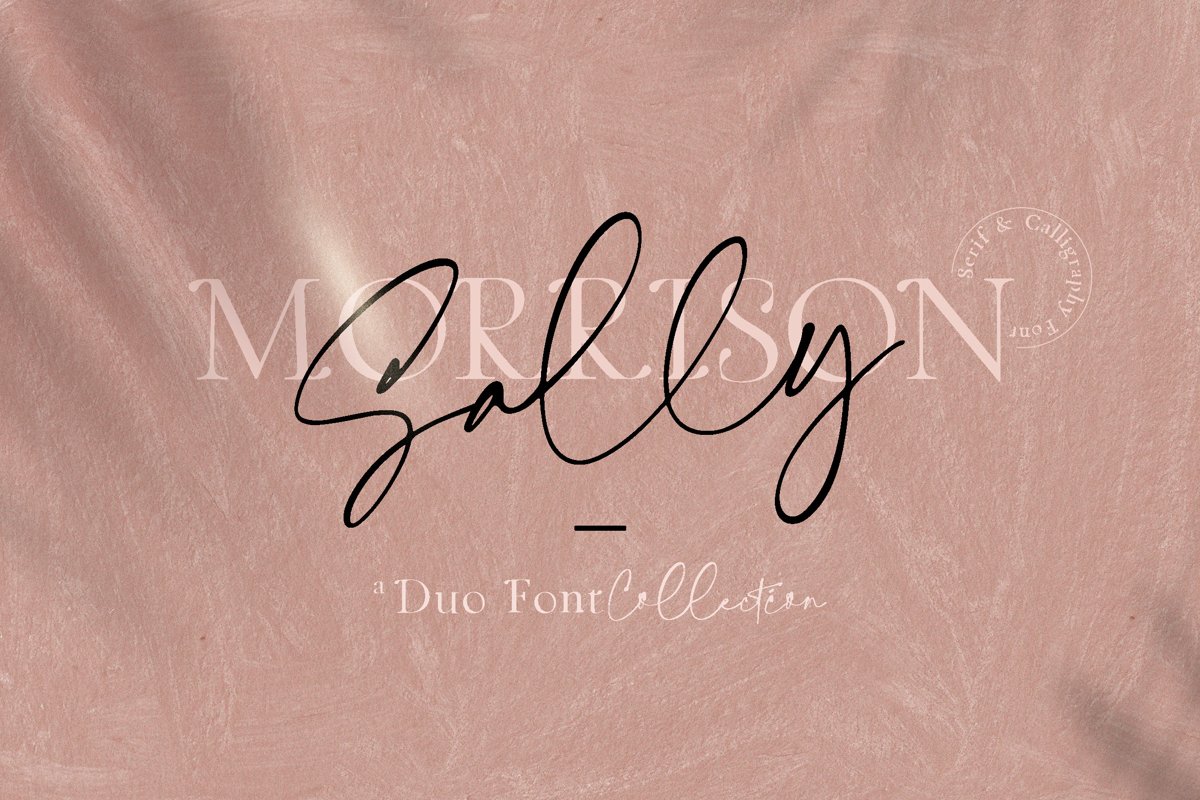
Sally Morrison Script & Serif
Sally Morrison Serif
Sally Morrison
Sally Morrison is a modern duo font, a mix of stylish calligraphy and minimalist serif font. Comes with unique ligature, Sally Morrison makes a perfect font for your blog, logo, social media, branding, poster, quotes, wedding cards & so forth, you decide!
The font contains accented character for international language, too (**check preview images to see which glyphs are included**) and 54 unique ligatures in Sally Morrison Script.
- Duo Font: Script & Serif
- Thin Pen Style
- Natural, Modern Hand Writing
- Accented Glyphs for Multilingual Purpose
- 52 Unique Ligatures